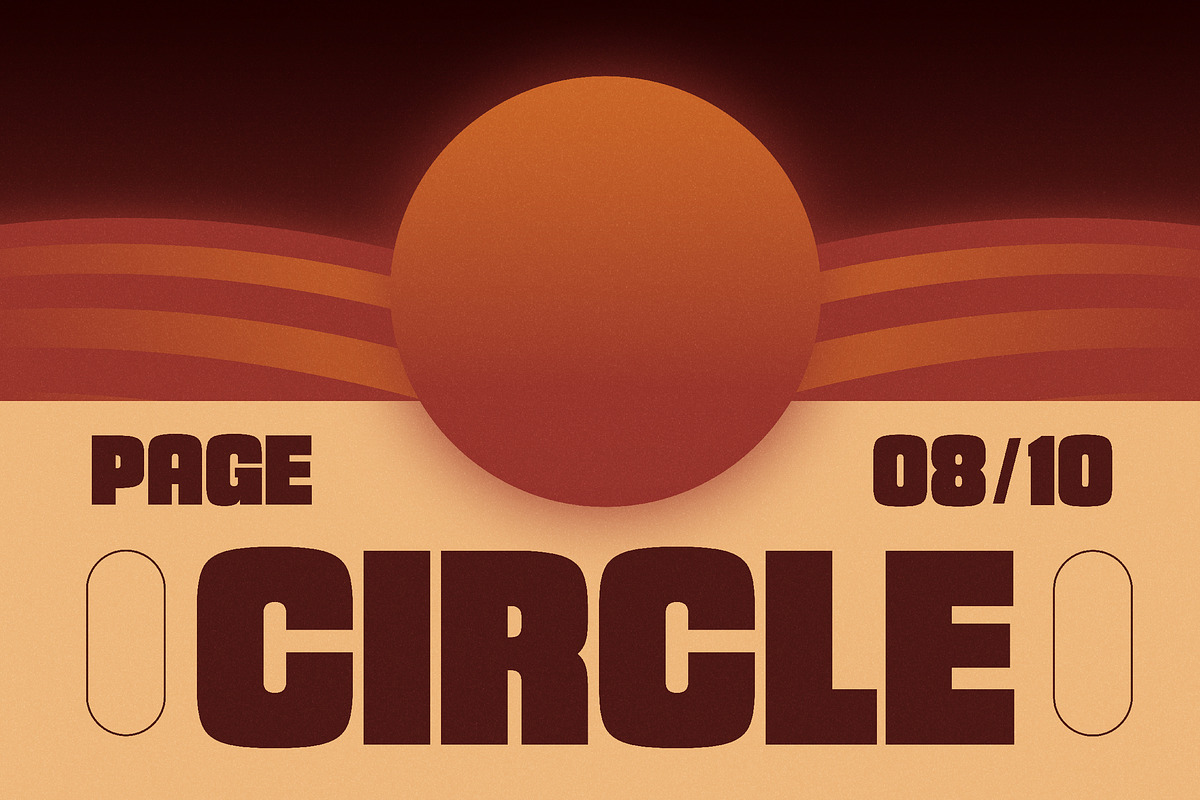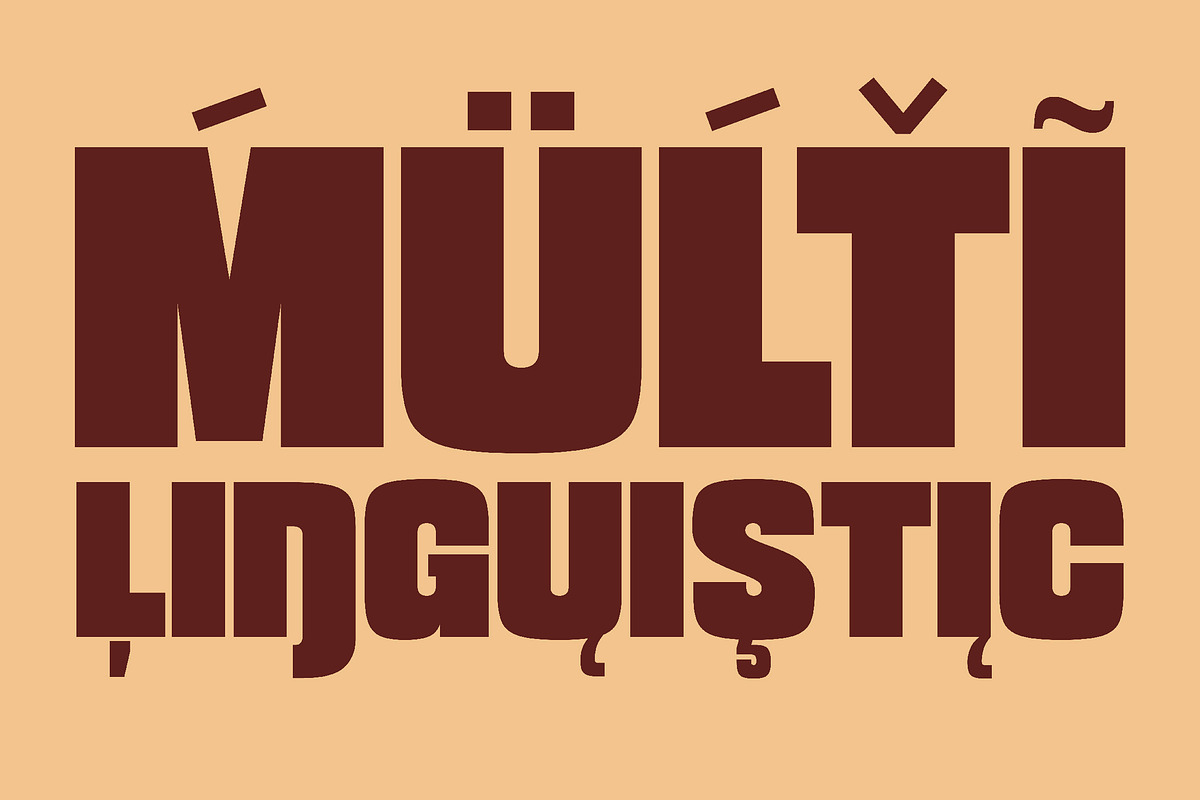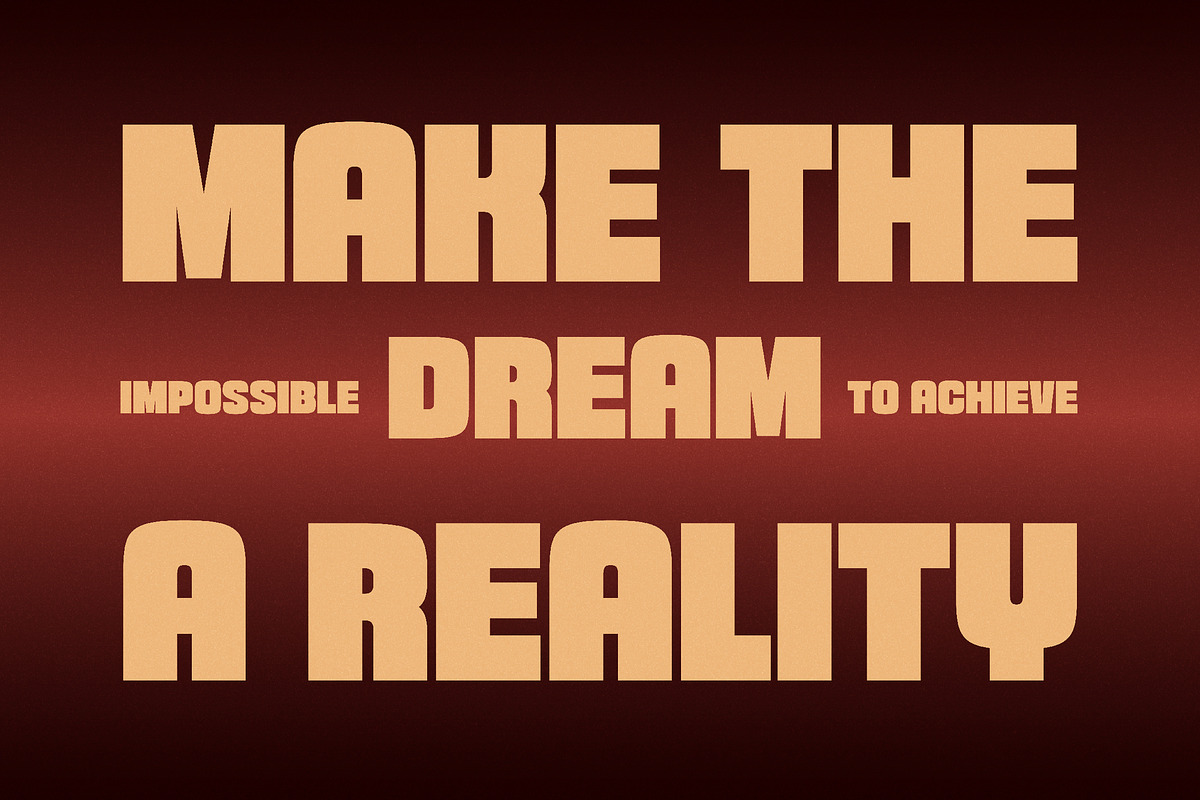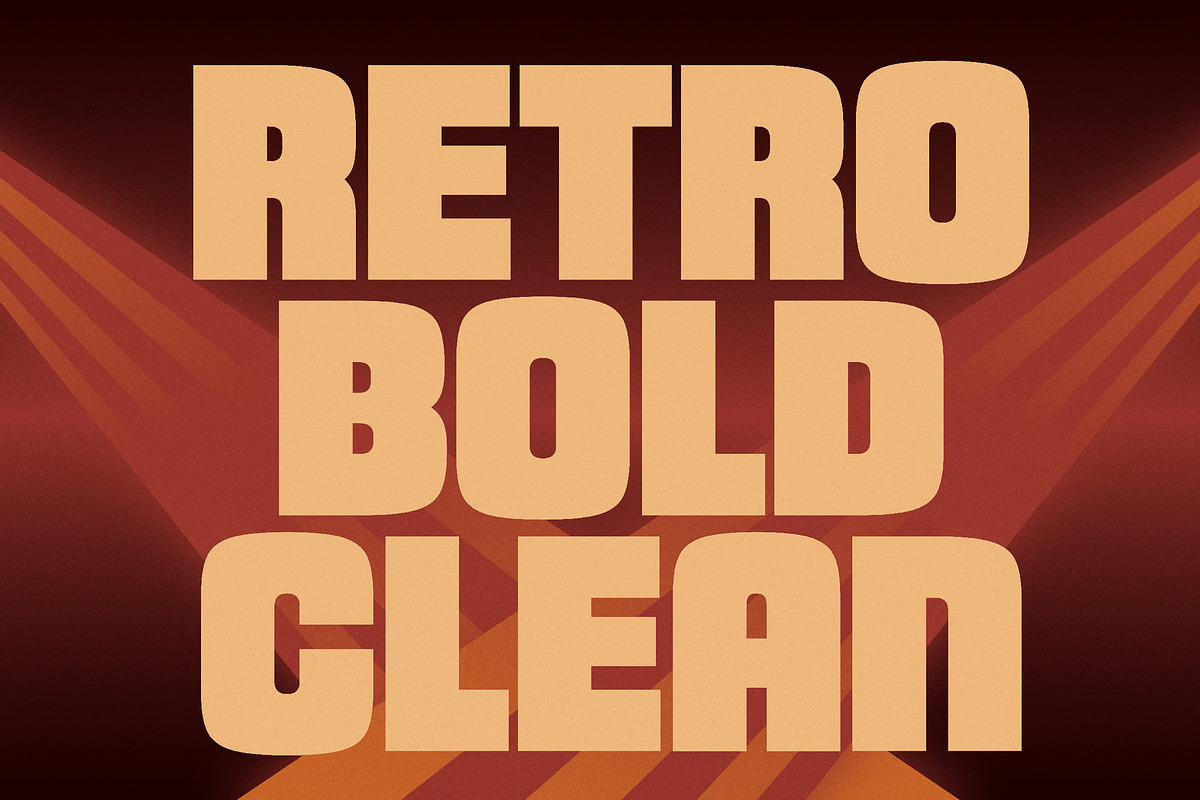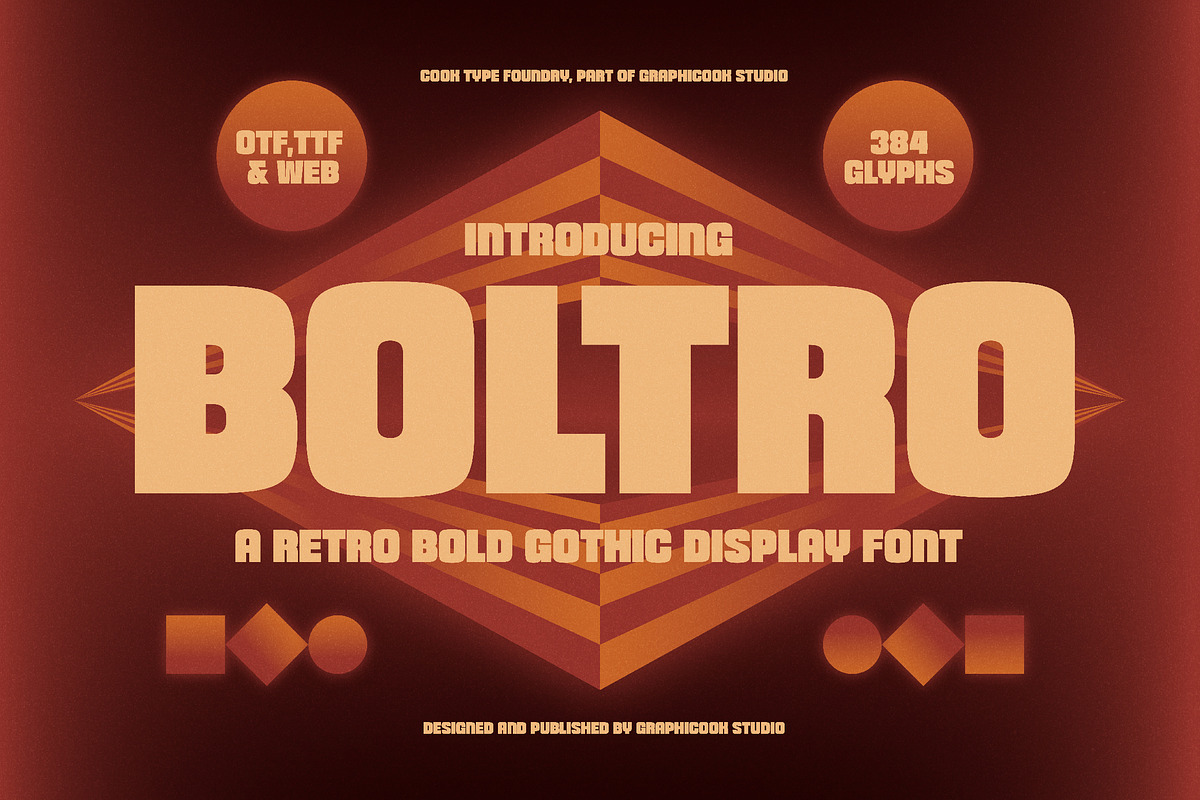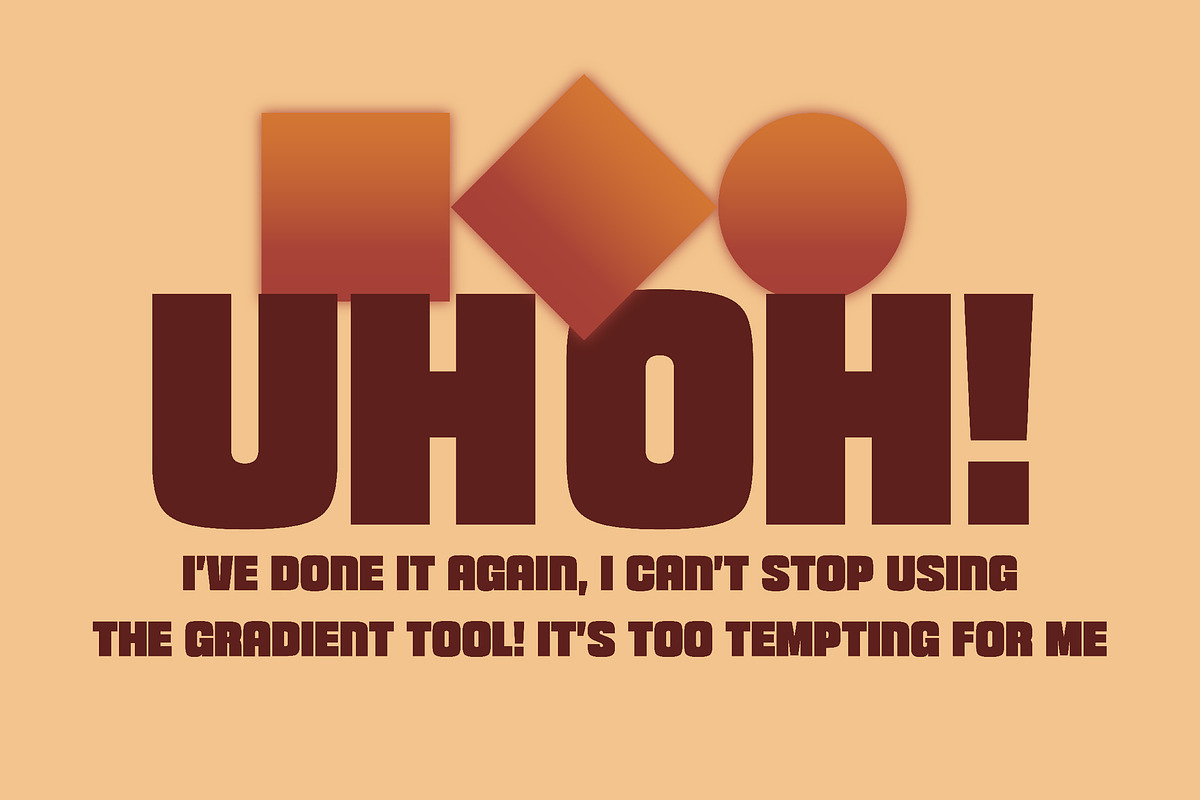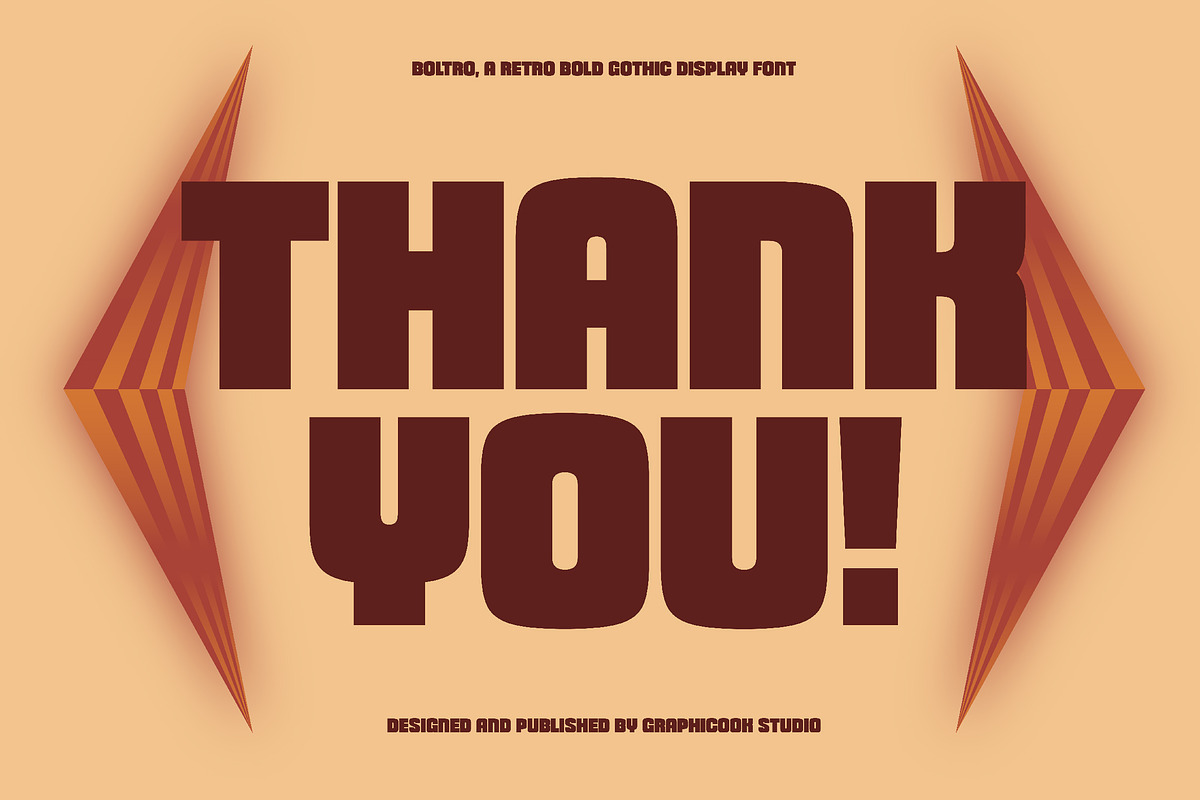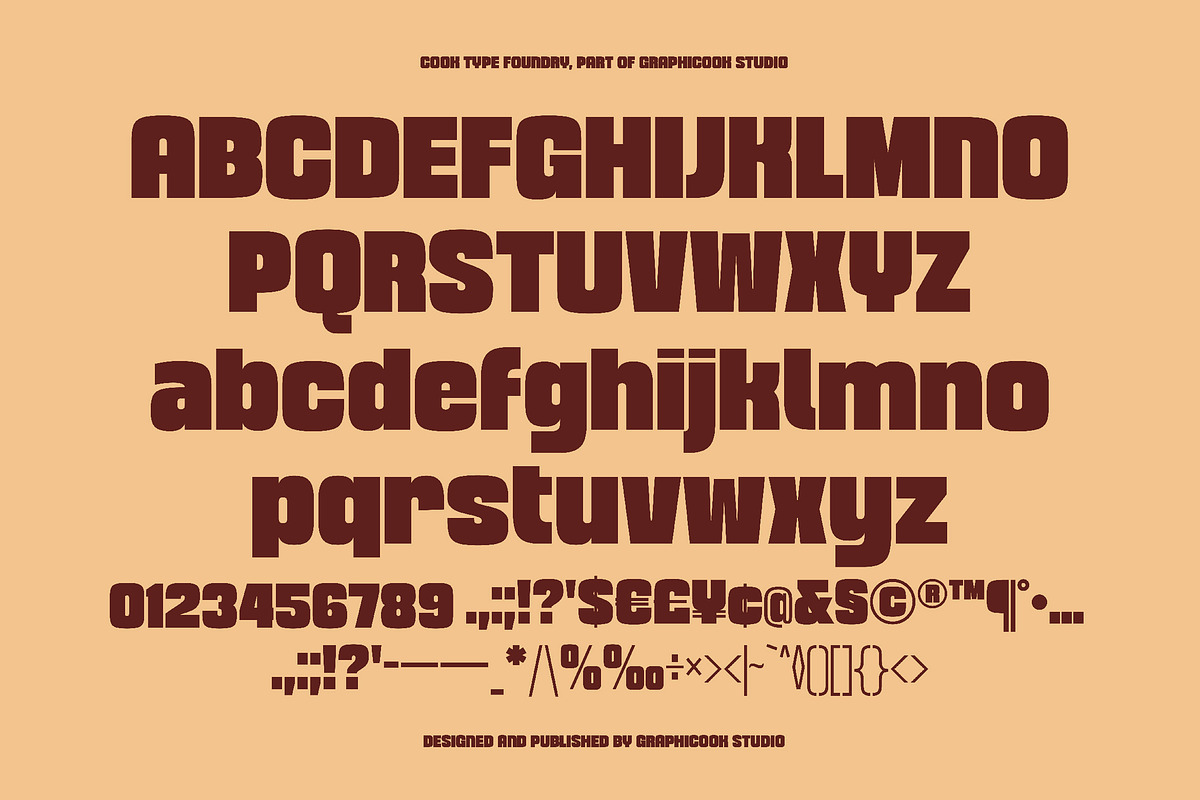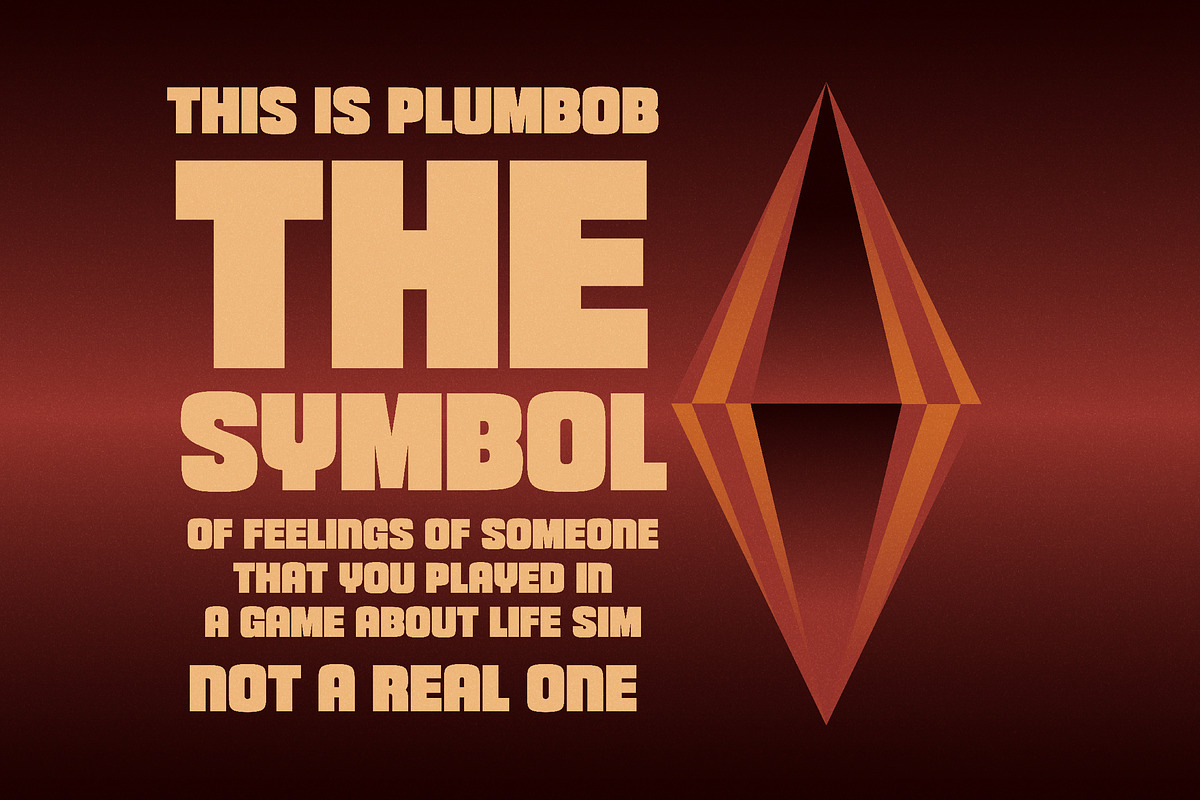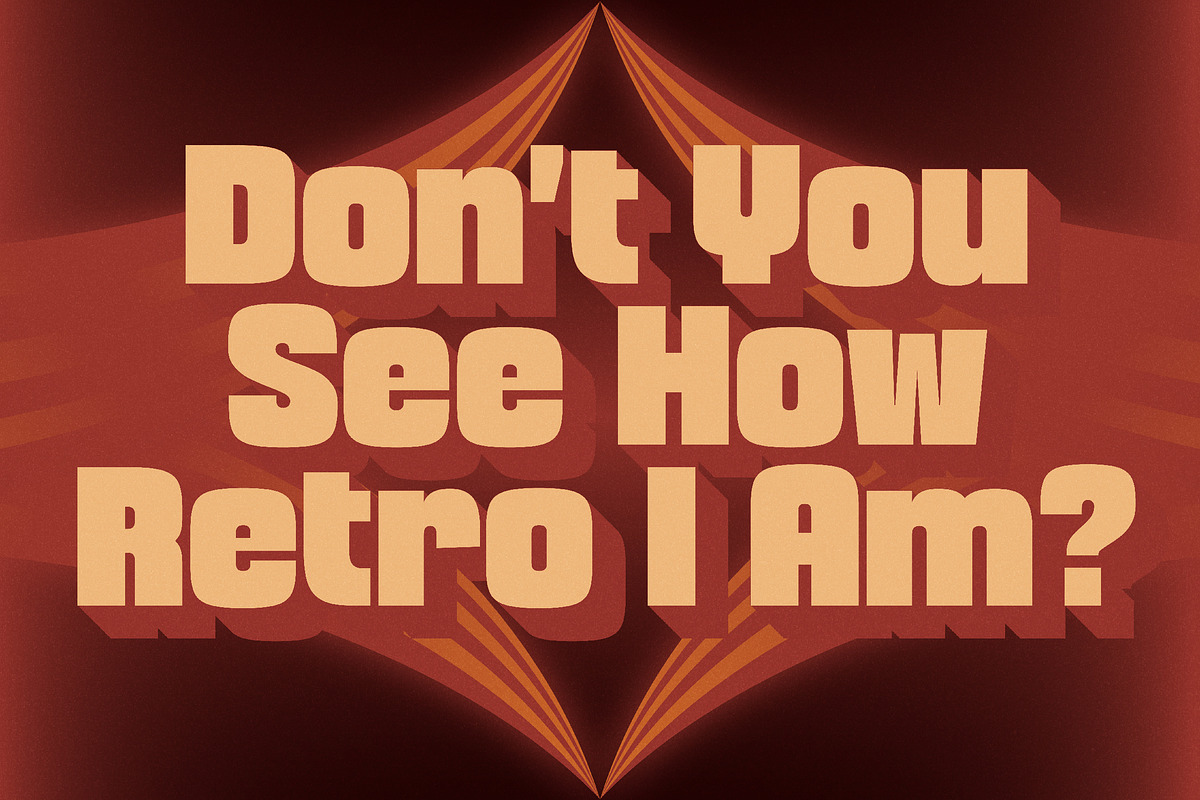
Boltro
Boltro is a sans-serif font with a bold and distinctive character, styled in a retro aesthetic. Perfect for masculine retro themes, rock concert posters, or bold and impactful branding.
Boltro is perfect for headlines, logotypes, magazines, packaging, quotes, movies, games, cover albums, book covers, and flyers, it's a perfect solution for creating eye-catching designs that stand out in any context.